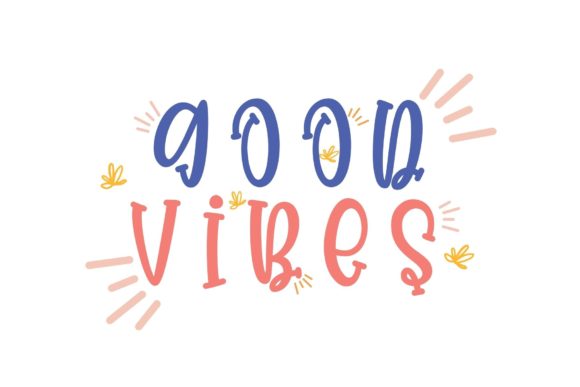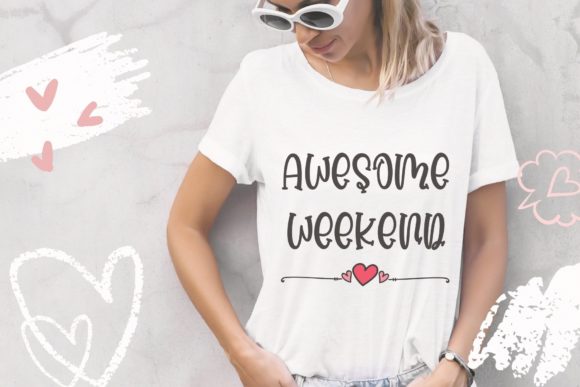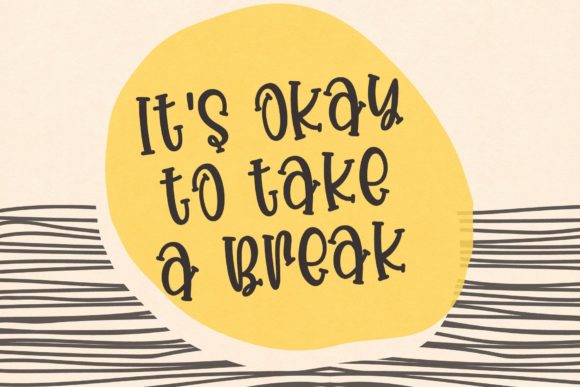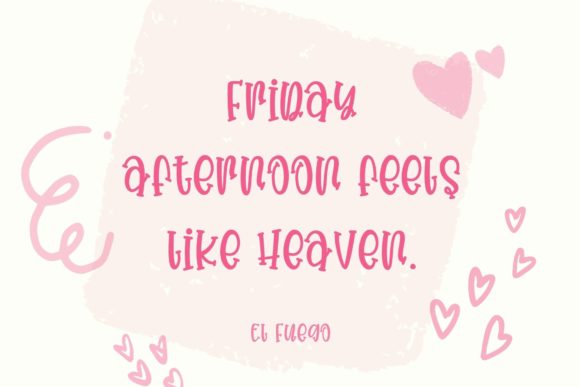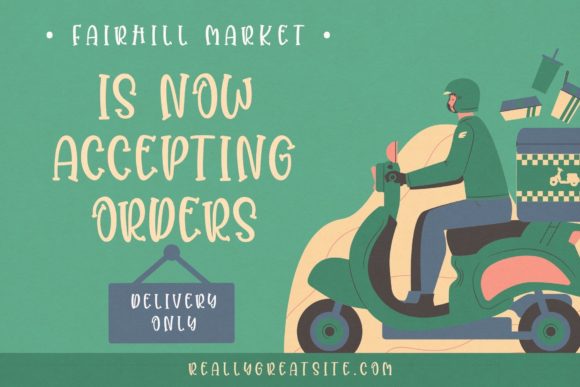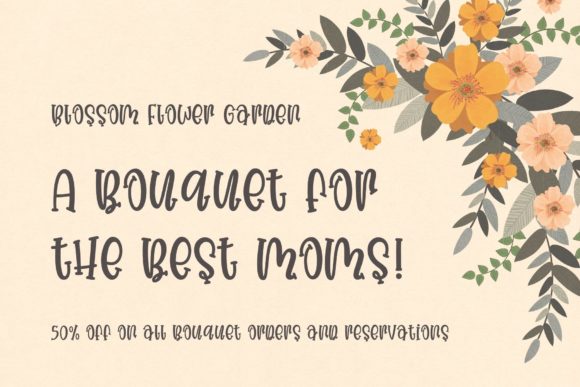
Introducing Before Friday Font: The Perfect Addition to Your Design Projects
Are you tired of using the same old fonts for your design projects? Look no further! Before Friday Font is a lovely and quirky serif font that is sure to add a touch of personality to your creations. Its friendly feel makes it versatile and fitting for a wide range of design projects, from headings and blogs to cooking menus, branding, quotes, logos, invitations, and craft designs.
The Characteristics of Before Friday Font
Before Friday Font is a serif font, which means it has small lines or flourishes at the ends of its letters. This gives it a classic and timeless feel that is perfect for designs that require a touch of elegance. However, what sets Before Friday Font apart from other serif fonts is its quirky and playful personality. The font has a friendly and approachable feel that makes it perfect for designs that require a more personal touch.
Uses for Before Friday Font
One of the best things about Before Friday Font is its versatility. It can be used for a wide range of design projects, including:
- Headings: Before Friday Font is perfect for headings and titles, adding a touch of personality and whimsy to your designs.
- Blogs: Use Before Friday Font for your blog posts to add a friendly and approachable feel to your writing.
- Cooking Menus: Before Friday Font is perfect for cooking menus, adding a touch of warmth and personality to your recipes.
- Branding: Use Before Friday Font for your brand identity, including logos, business cards, and letterheads.
- Quotes: Before Friday Font is perfect for quotes and sayings, adding a touch of elegance and sophistication to your designs.
- Logos: Use Before Friday Font to create unique and memorable logos for your business or brand.
- Invitations: Before Friday Font is perfect for invitations, including wedding invitations, birthday invitations, and more.
- Craft Designs: Use Before Friday Font for your craft designs, including handmade cards, scrapbooking, and more.
Why Choose Before Friday Font?
So why choose Before Friday Font for your design projects? Here are just a few reasons:
- Unique Personality: Before Friday Font has a unique and quirky personality that sets it apart from other fonts.
- Versatility: Before Friday Font can be used for a wide range of design projects, making it a great addition to your font library.
- Elegance: Despite its playful personality, Before Friday Font has a classic and elegant feel that makes it perfect for designs that require a touch of sophistication.
- Easy to Read: Before Friday Font is easy to read, making it perfect for body text and other designs where readability is important.
Adding Before Friday Font to Your Design Projects
Tips for Using Before Friday Font
Here are a few tips for using Before Friday Font in your design projects:
- Experiment with Different Sizes: Before Friday Font looks great in a variety of sizes, from large headings to small body text.
- Pair it with Other Fonts: Before Friday Font pairs well with other fonts, including sans-serif fonts and script fonts.
- Use it for Emphasis: Use Before Friday Font to add emphasis to certain words or phrases in your designs.
- Have Fun: Most importantly, have fun with Before Friday Font! Its playful personality makes it perfect for designs that require a touch of whimsy and personality.
In conclusion, Before Friday Font is a lovely and quirky serif font that is perfect for a wide range of design projects. Its friendly feel and versatile personality make it a great addition to your font library. Whether you’re a designer, crafter, or DIY enthusiast, Before Friday Font is sure to become one of your go-to fonts. So why not give it a try and see how it can bring your designs to life?